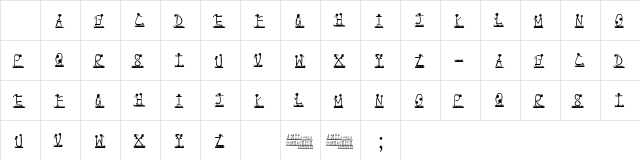
Complete Pappu pass ho gaya Regular glyph index. Displaying only characters natively supported by Pappu pass ho gaya Regular font.
Pappu pass ho gaya is a composed and adaptable typeface that performs quietly and consistently across a wide range of design contexts.
Who designed the Pappu pass ho gaya Regular font?